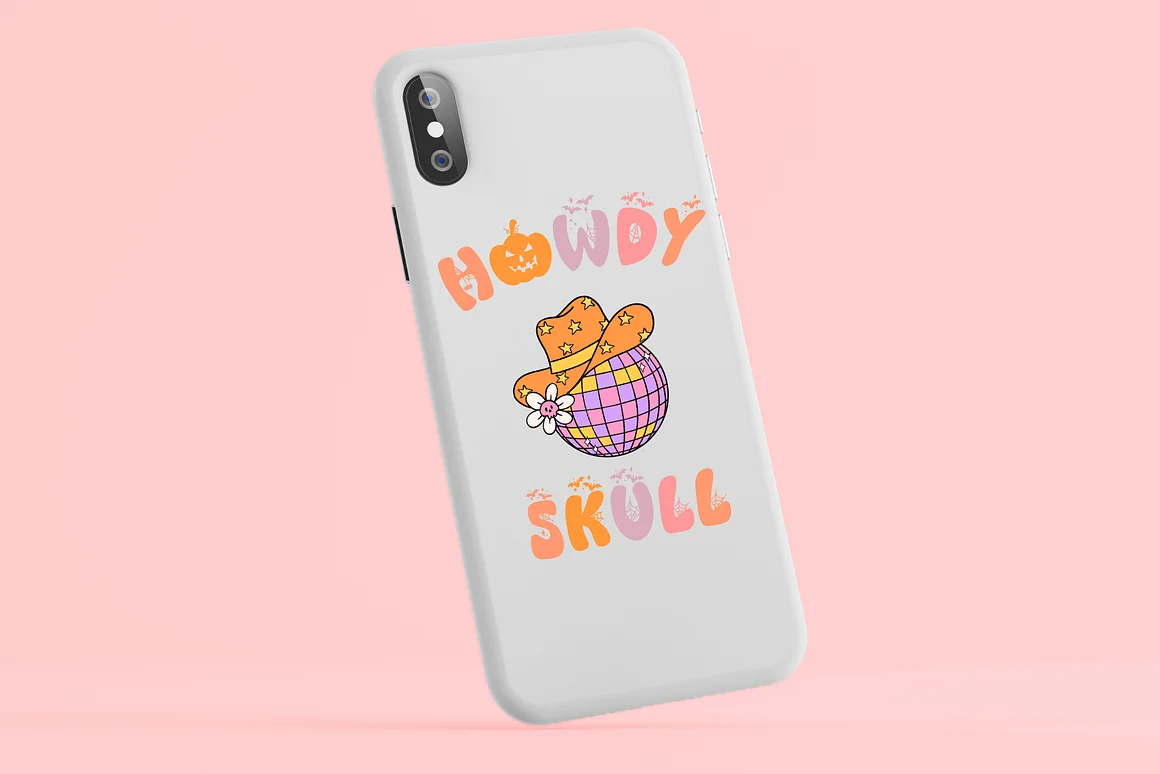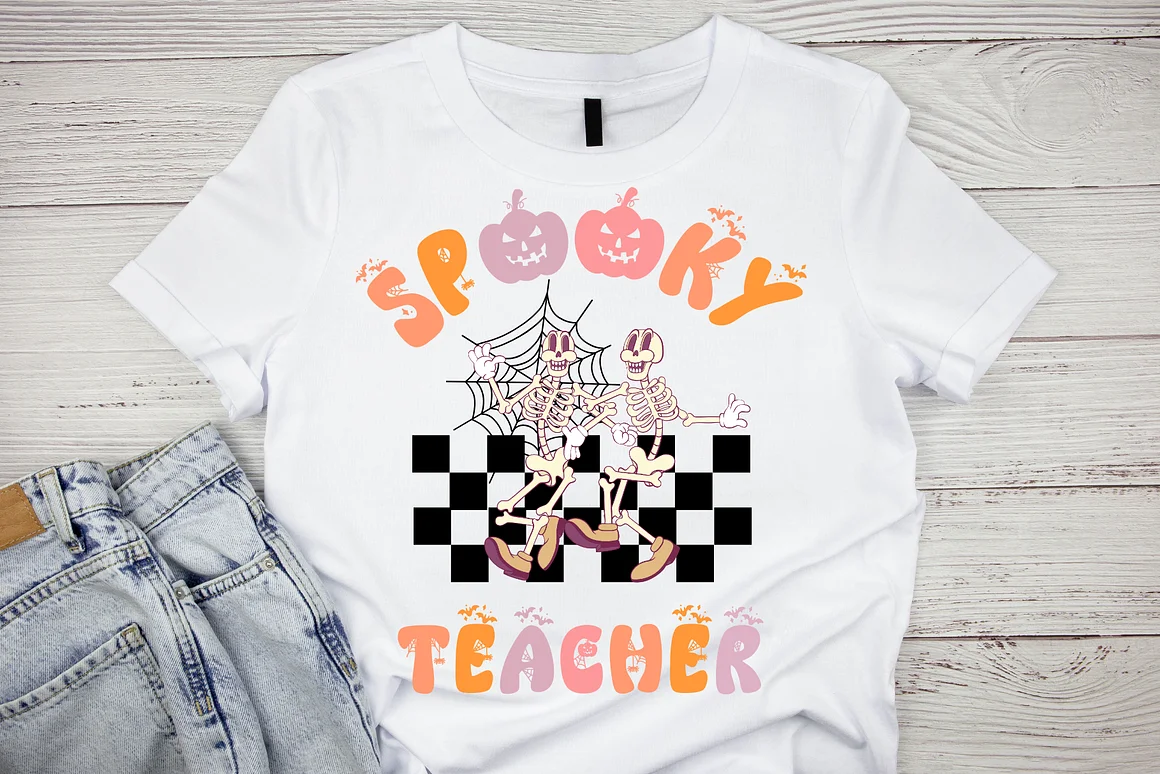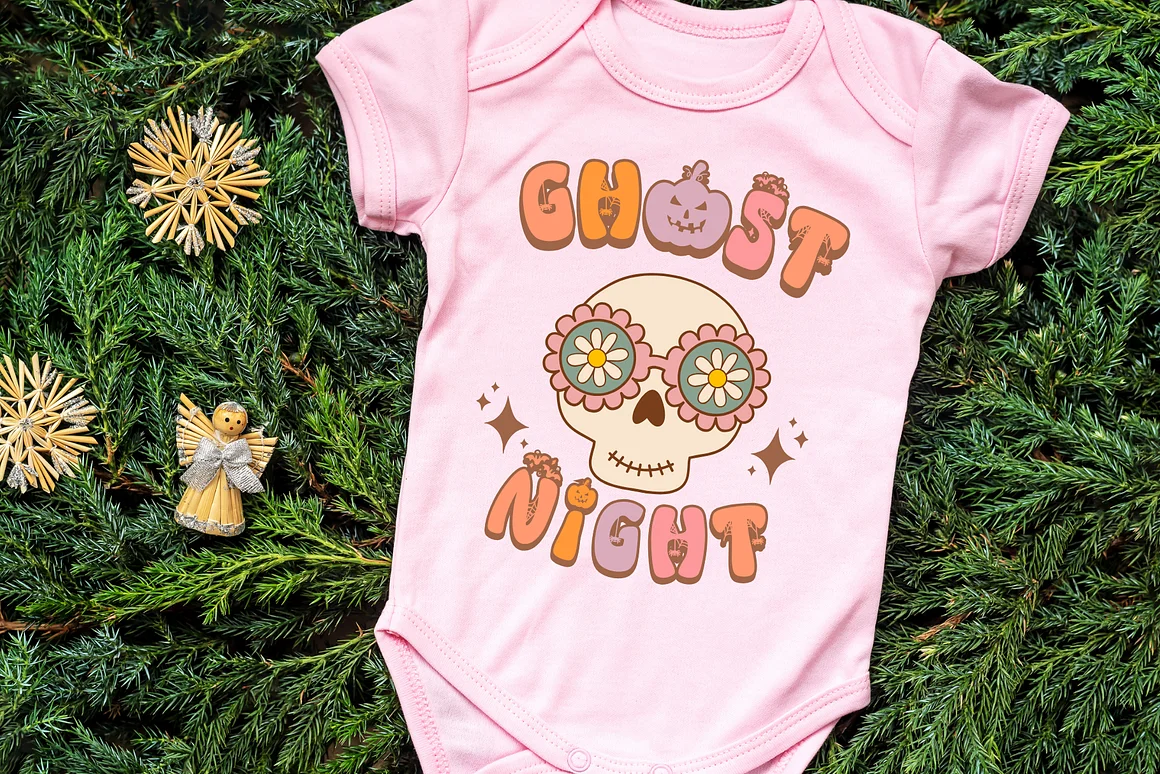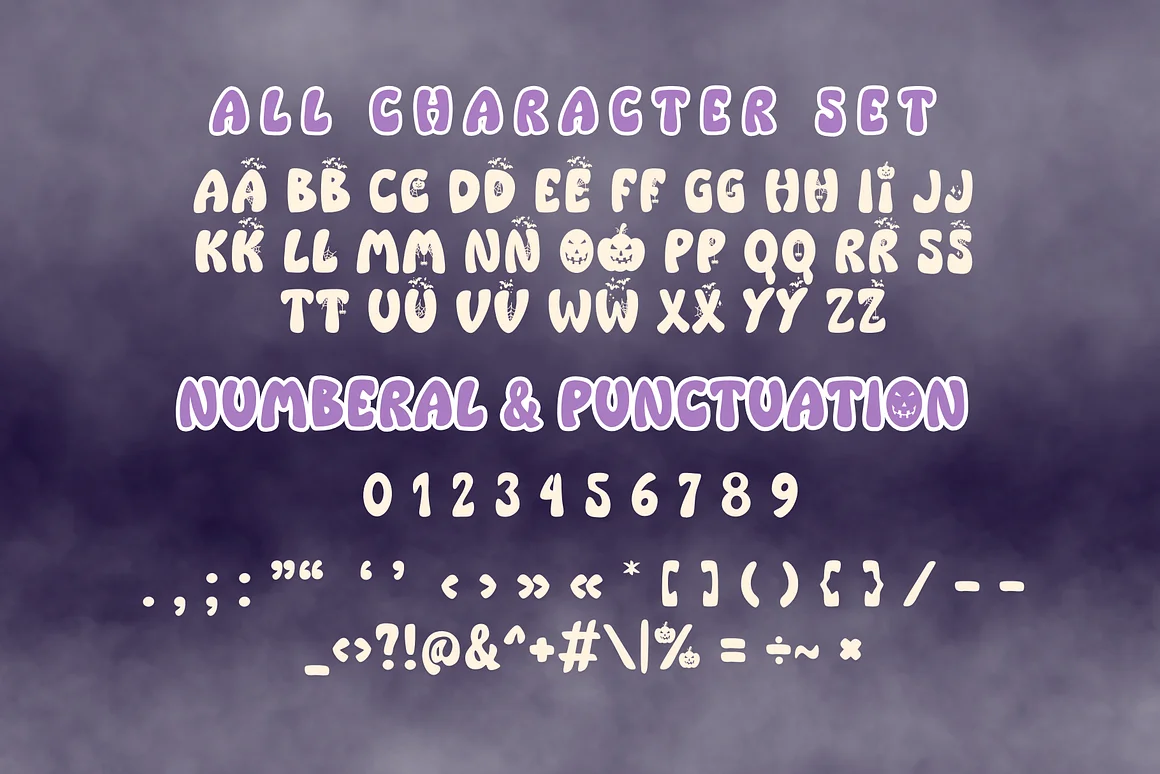
Horror Boo is a Retro Halloween Font
This vintage font is perfect for retro Halloween parties, classic horror movie posters, vintage spooky decorations, old-school Halloween events, nostalgic horror branding, retro costume parties, classic monster celebrations, vintage Halloween merchandise, throwback horror marketing, and nostalgically frightening Halloween messaging materials.
Horror Boo is a Retro Halloween Font is exciting because it captures the timeless charm and classic appeal of vintage Halloween through its nostalgically crafted letterforms that transport viewers back to the golden age of horror when scares were simpler but no less effective. The font features classically proportioned characters with retro styling and vintage details that evoke the beloved aesthetics of old-school Halloween celebrations from the era of classic monster movies, vintage trick-or-treating, and the innocent terror of Halloween past, incorporating retro flourishes and nostalgic elements that create typography as charmingly frightening as the Halloween decorations our grandparents treasured. Each letter showcases the endearing simplicity and timeless appeal that makes vintage Halloween so beloved, with classic curves and retro accents that transform ordinary text into nostalgic expressions of Halloween tradition that connect modern celebrations to the cherished Halloween memories of generations past.
The Horror Boo is a Retro Halloween Font family includes vintage-inspired variations: Regular, Bold, Light, Classic, and Throwback versions. The collection features special retro elements including vintage ghost accents, classic horror flourishes, old-school details, and nostalgic ornaments. Additional components include retro borders, vintage frames, classic decorations, and throwback ornamental designs that enhance the font's horror boo retro Halloween appeal and create cohesive nostalgic horror themes.
Vintage Halloween collectors and retro celebration enthusiasts will find Horror Boo is a Retro Halloween Font to be a perfect resource for creating authentically nostalgic Halloween communications that honor the cherished traditions and timeless appeal of classic Halloween celebrations. This nostalgically crafted font transforms ordinary Halloween messaging into vintage expressions that resonate with audiences who appreciate the enduring charm and innocent terror of old-school Halloween traditions and classic horror aesthetics.
The typeface includes comprehensive character support with vintage styling that maintains excellent readability while conveying the nostalgic charm and classic appeal of retro Halloween celebrations. The font's throwback design ensures charmingly vintage results across both modern retro applications and authentic vintage Halloween reproductions.
Perfect for vintage Halloween events, retro horror celebrations, classic monster parties, and nostalgic seasonal marketing, this font delivers charmingly vintage visual impact that communicates timeless appeal, nostalgic charm, and the enduring magic of classic Halloween that continues to inspire and delight audiences seeking the innocent terror and cherished traditions of Halloween past.